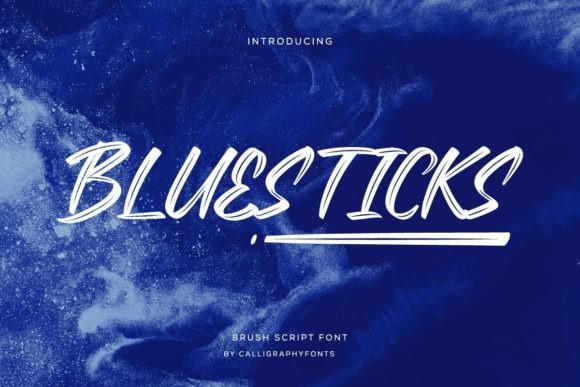
Bluesticks Brush Font
Bluesticks is a cool, brushed and urban styled handwritten font. It is perfect for fashion branding or editorial designs. Add it confidently to your projects, and you will love the results.